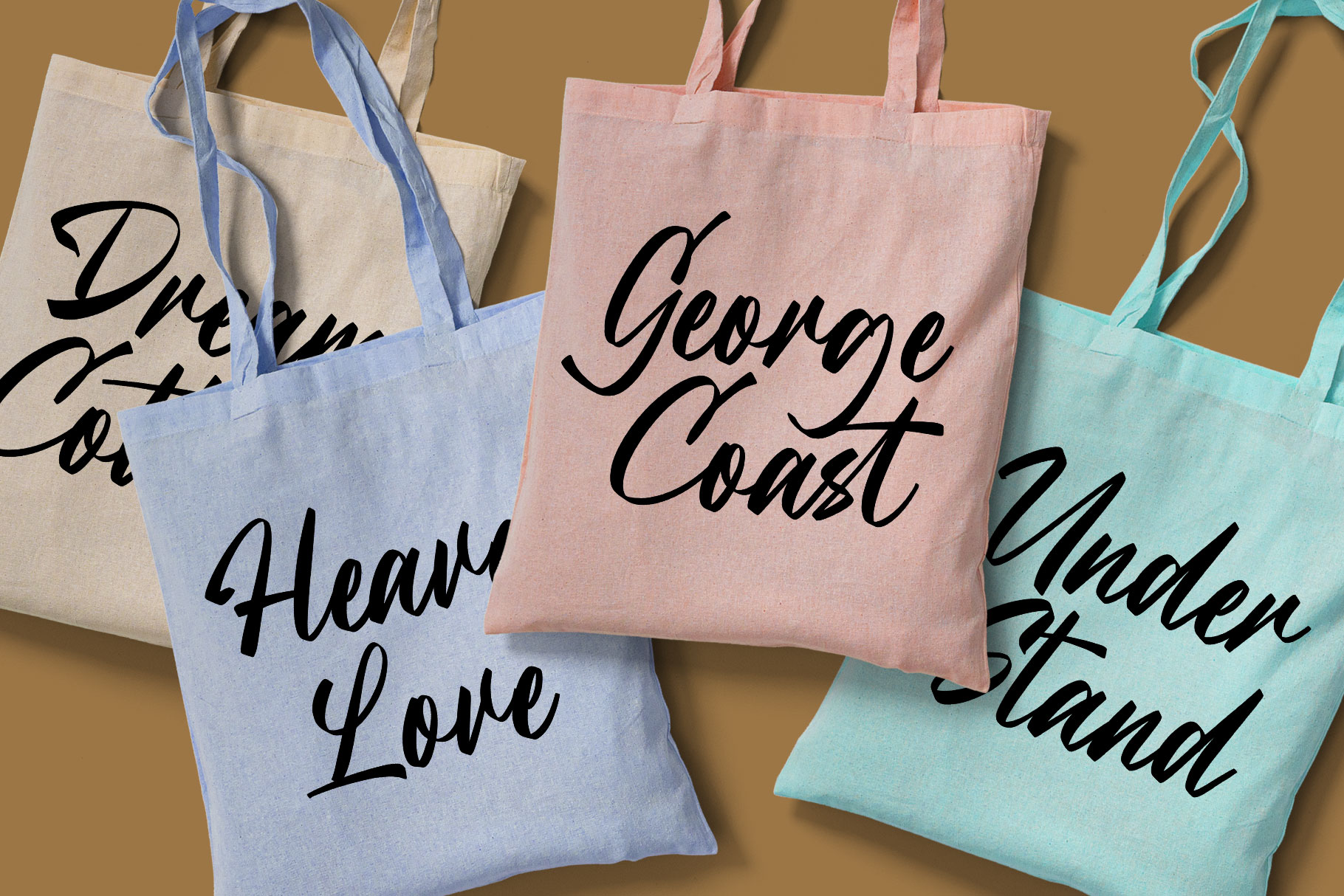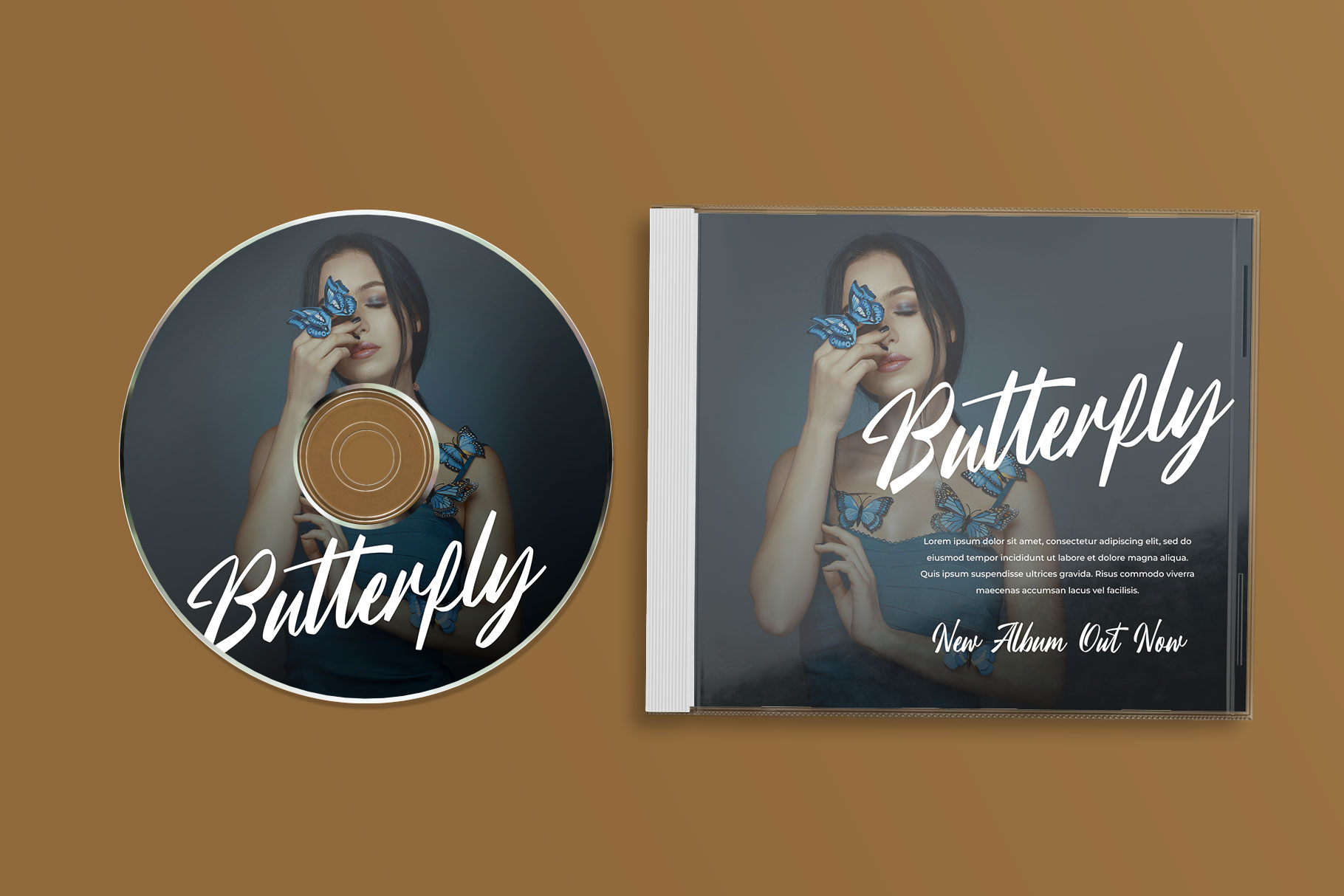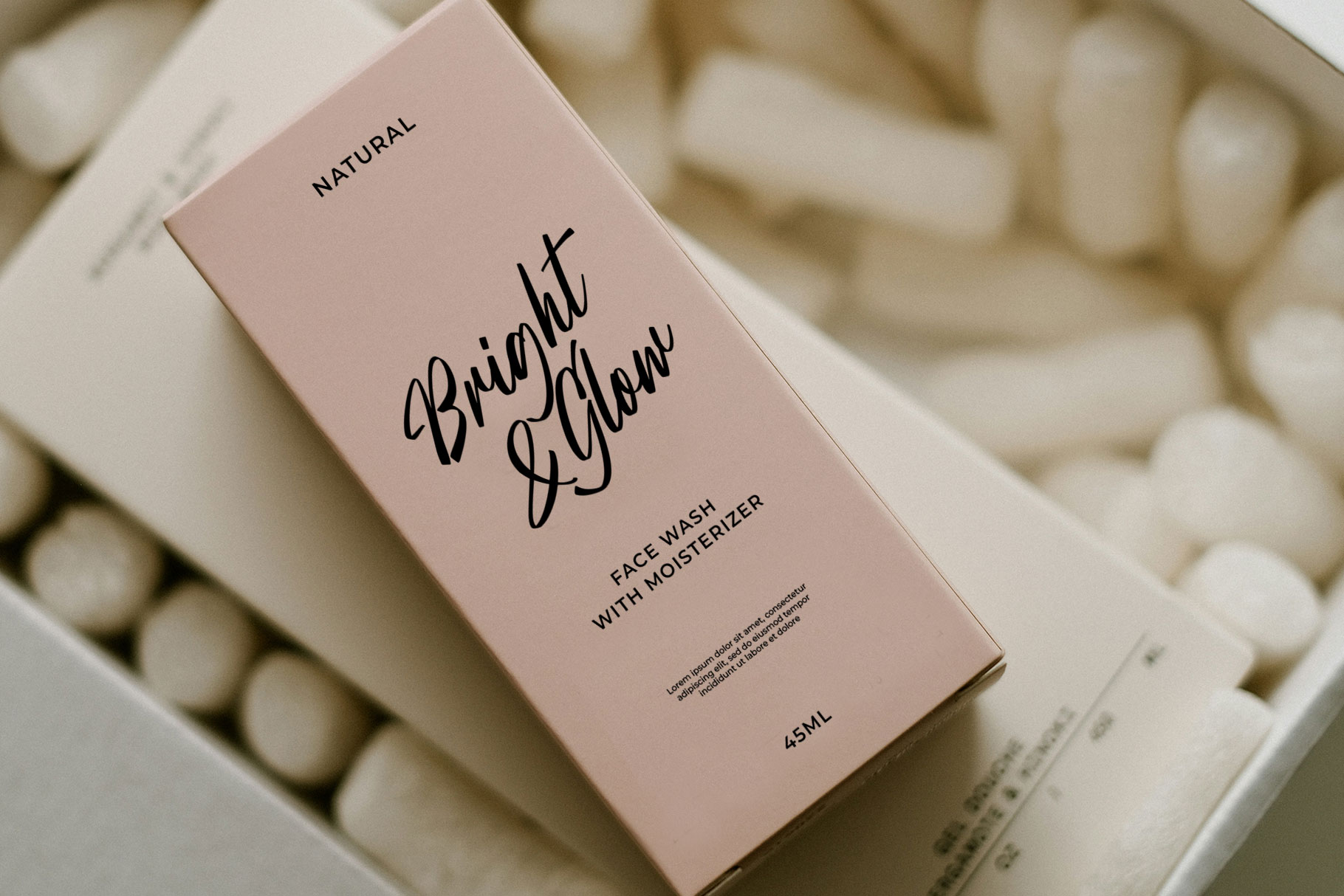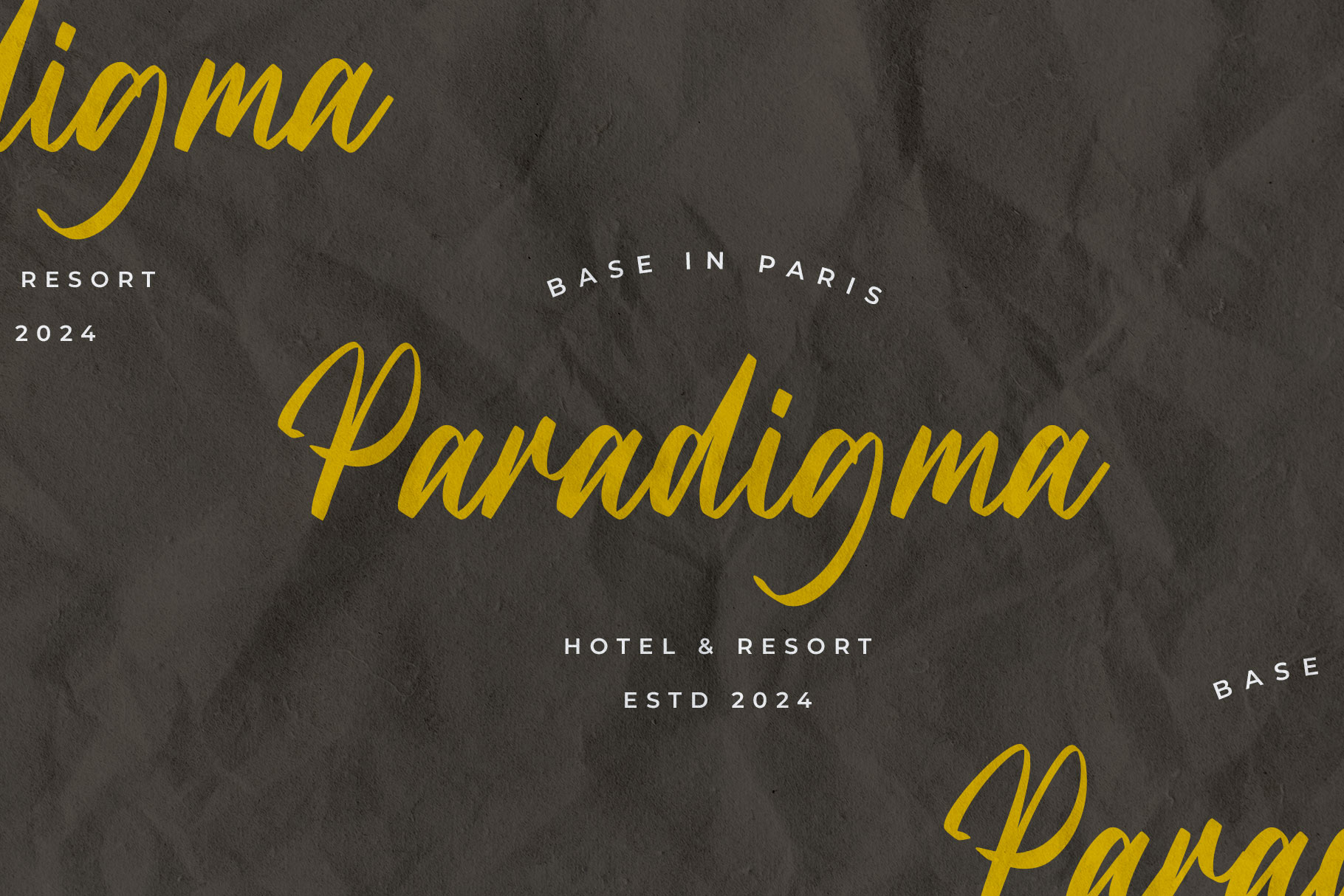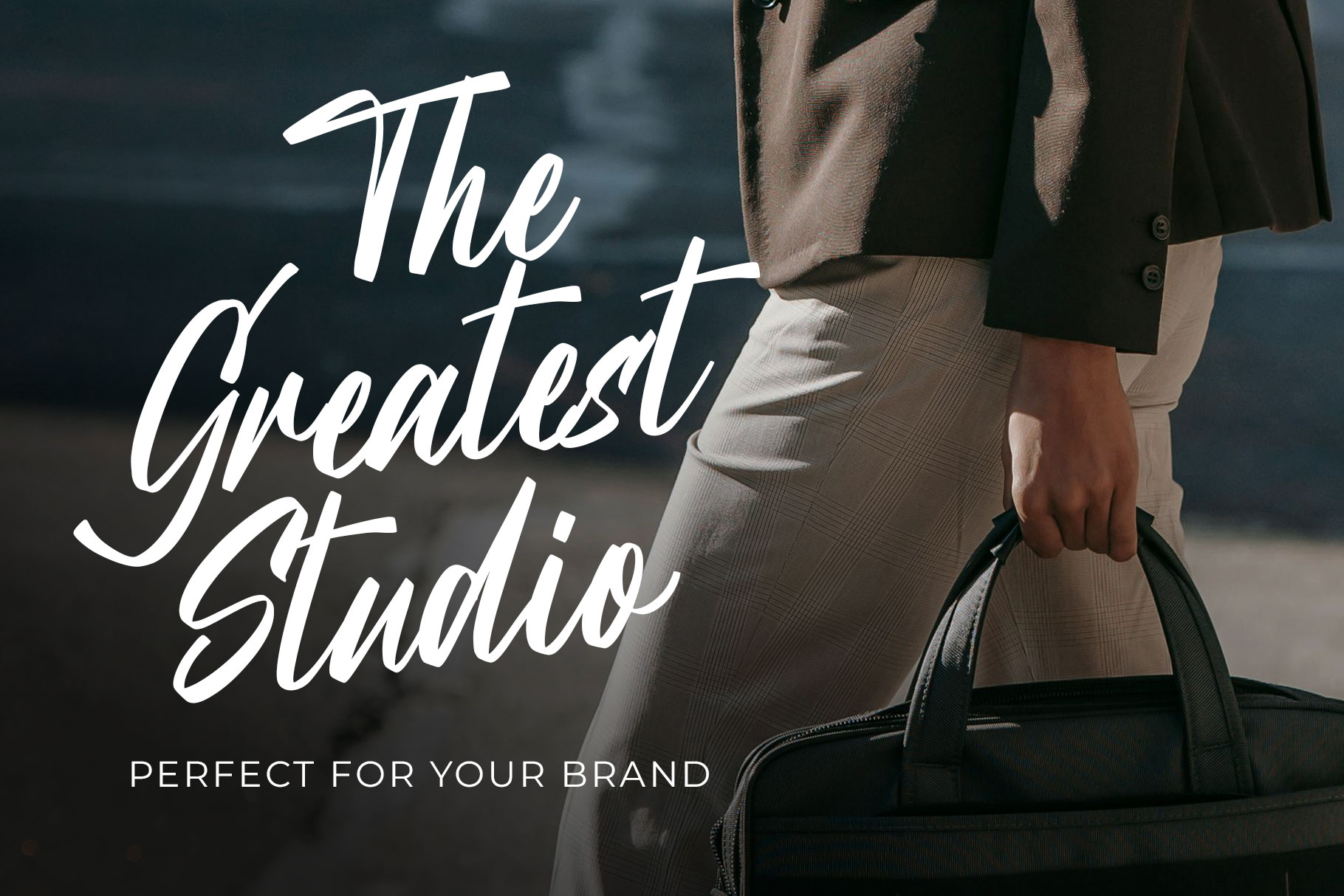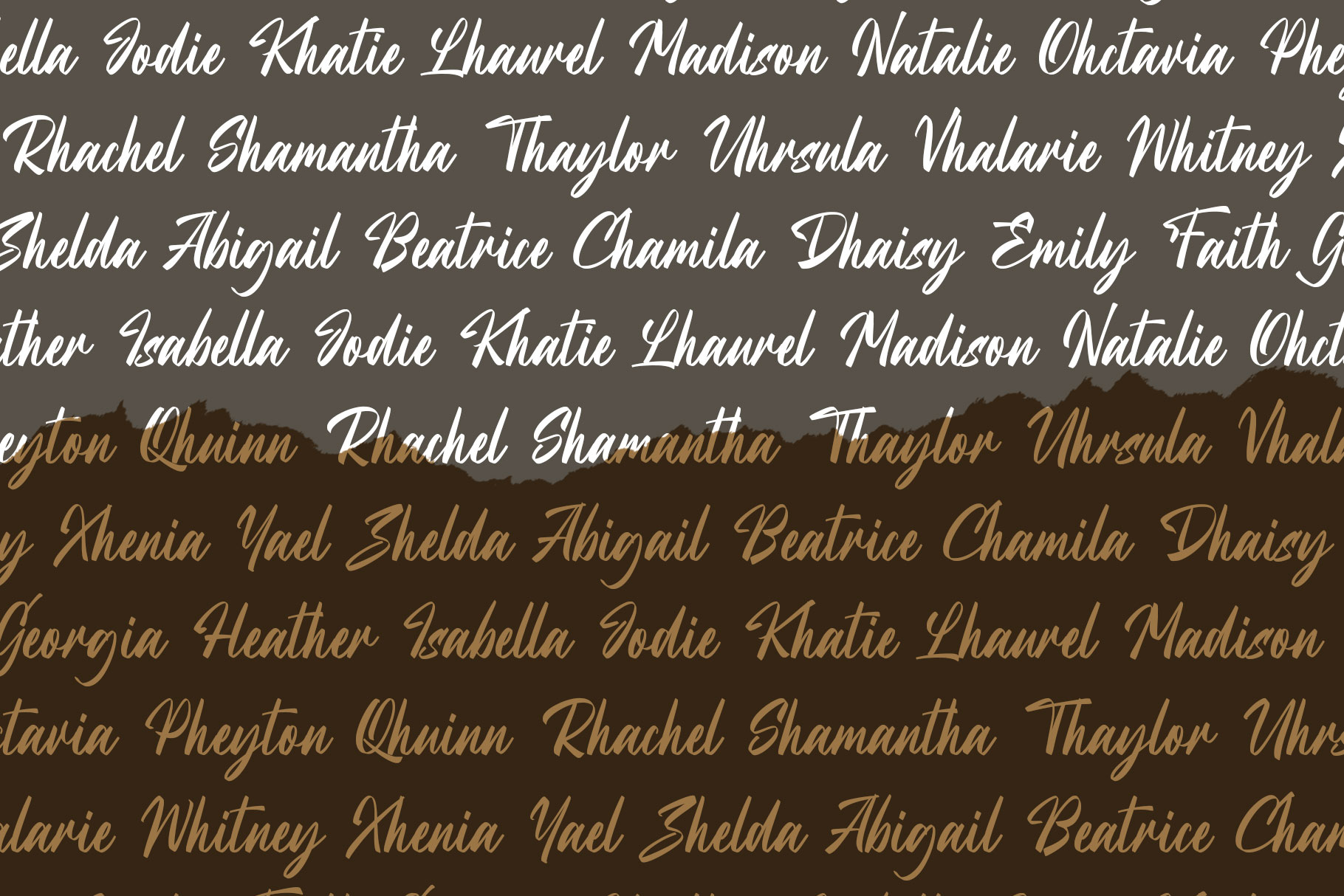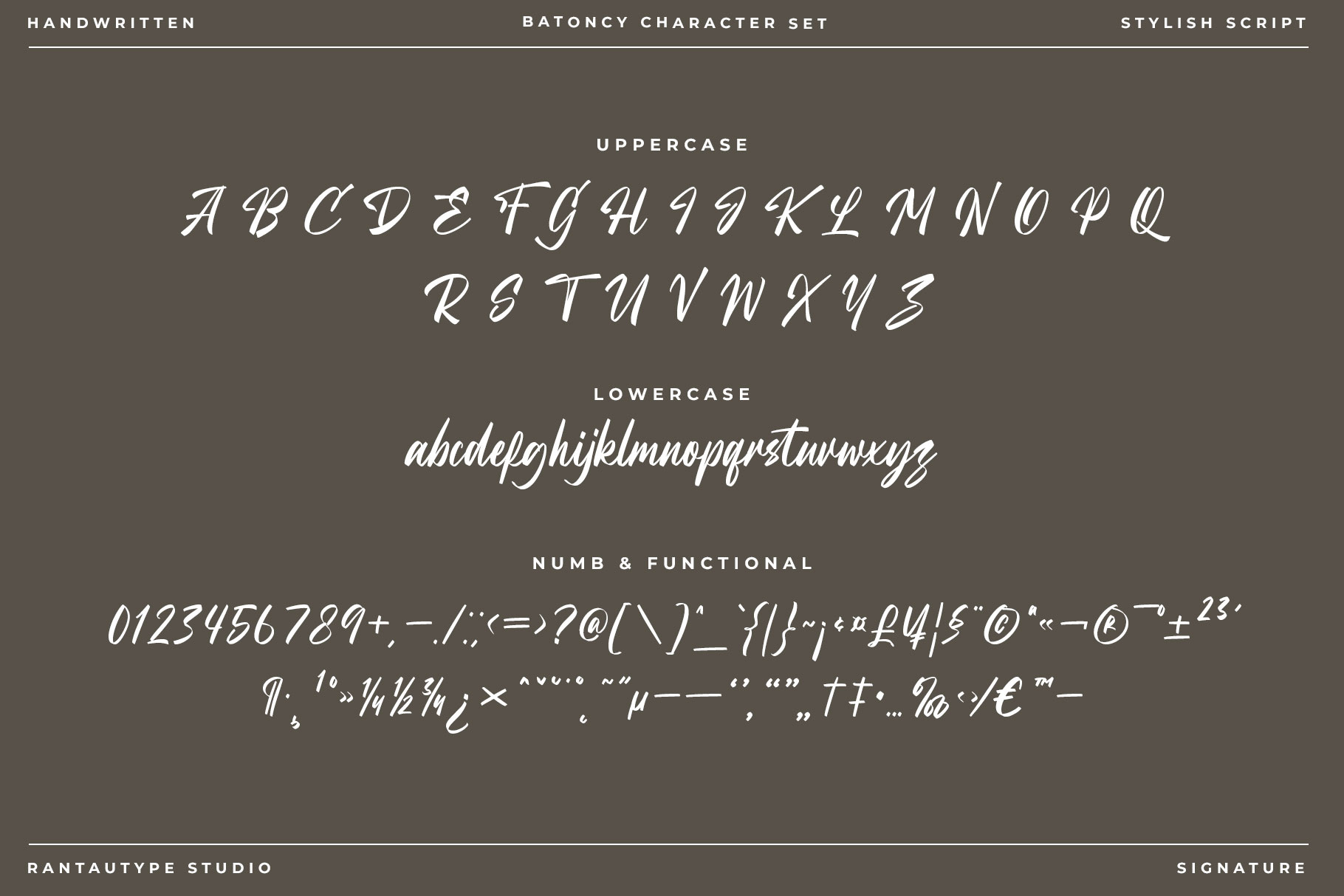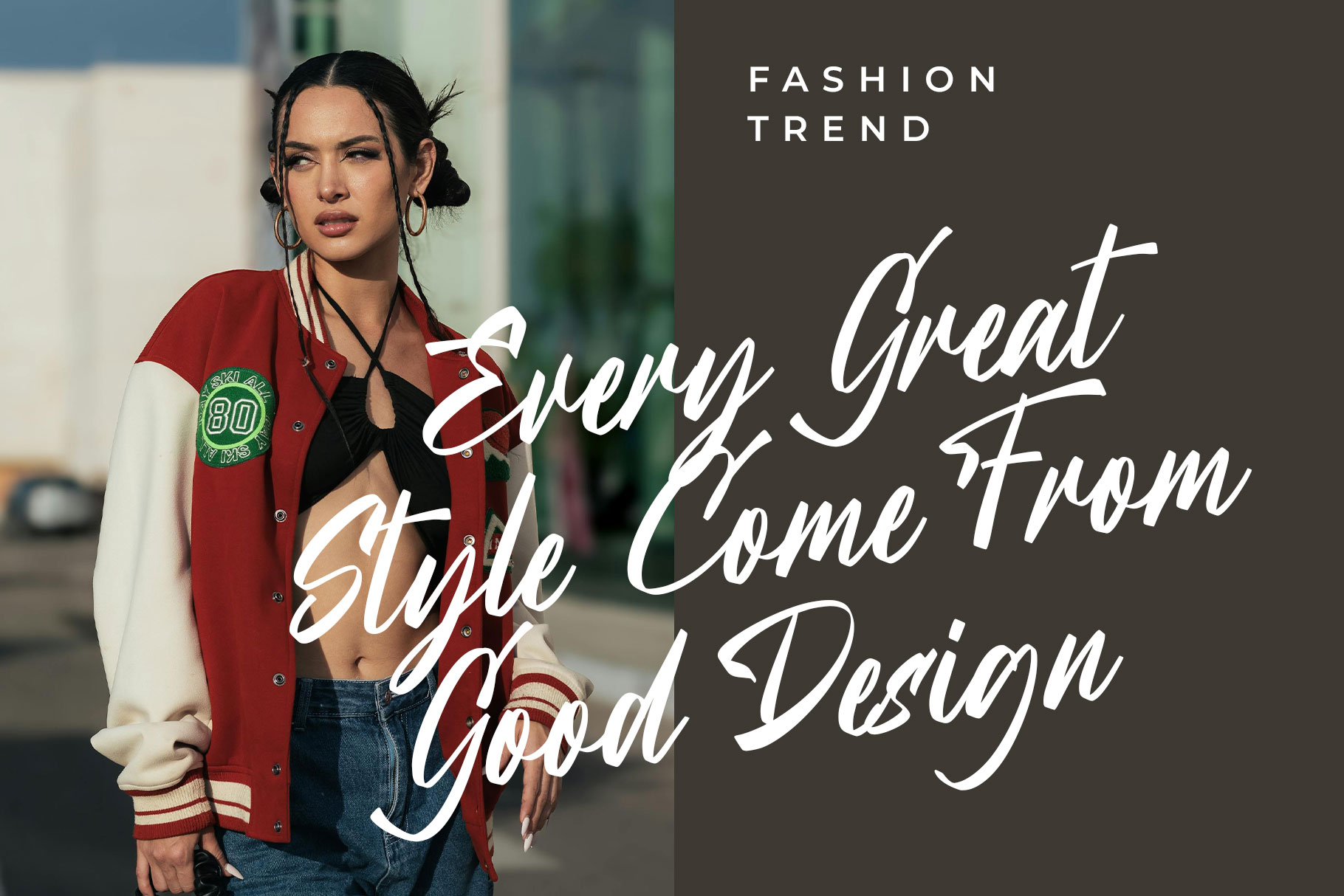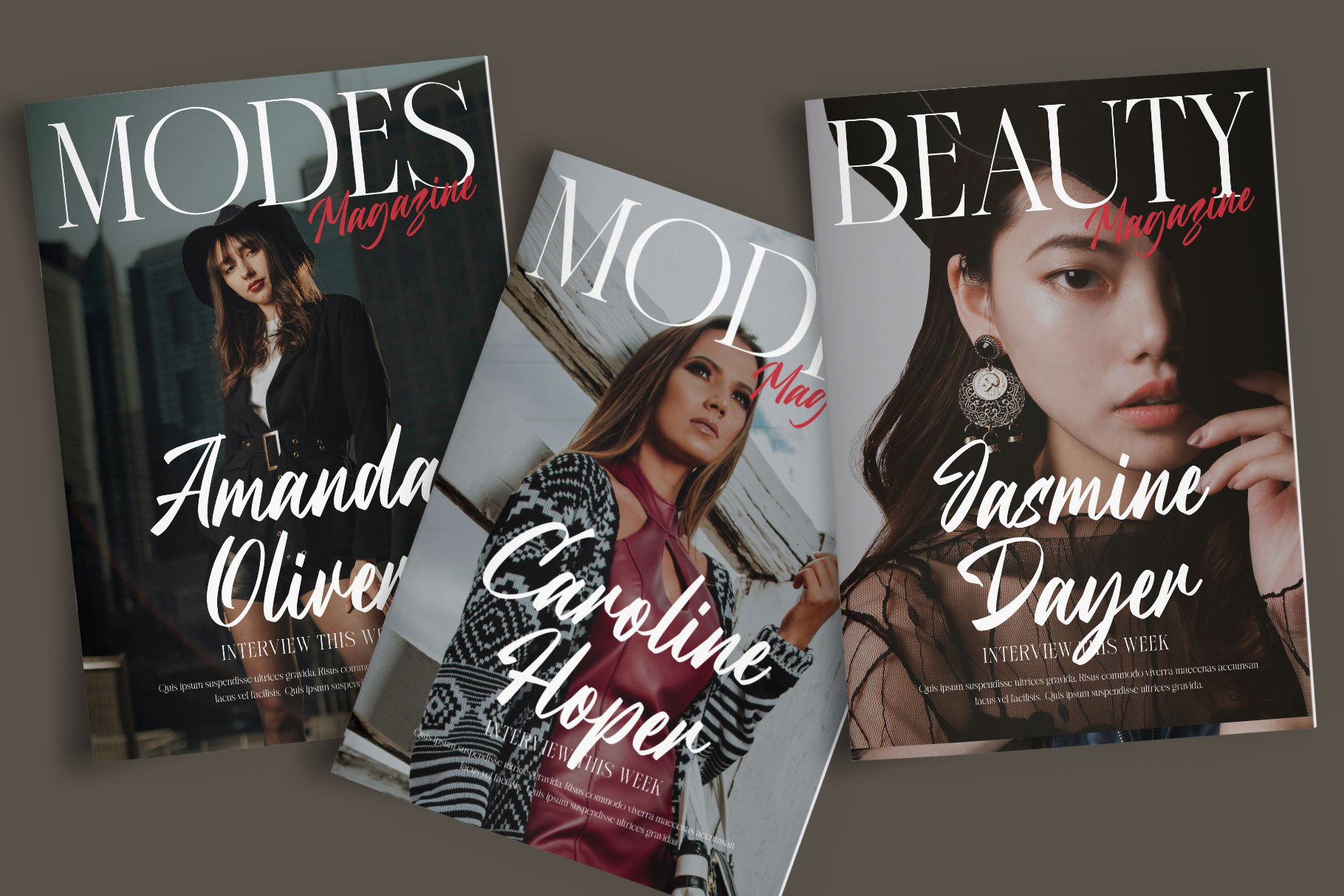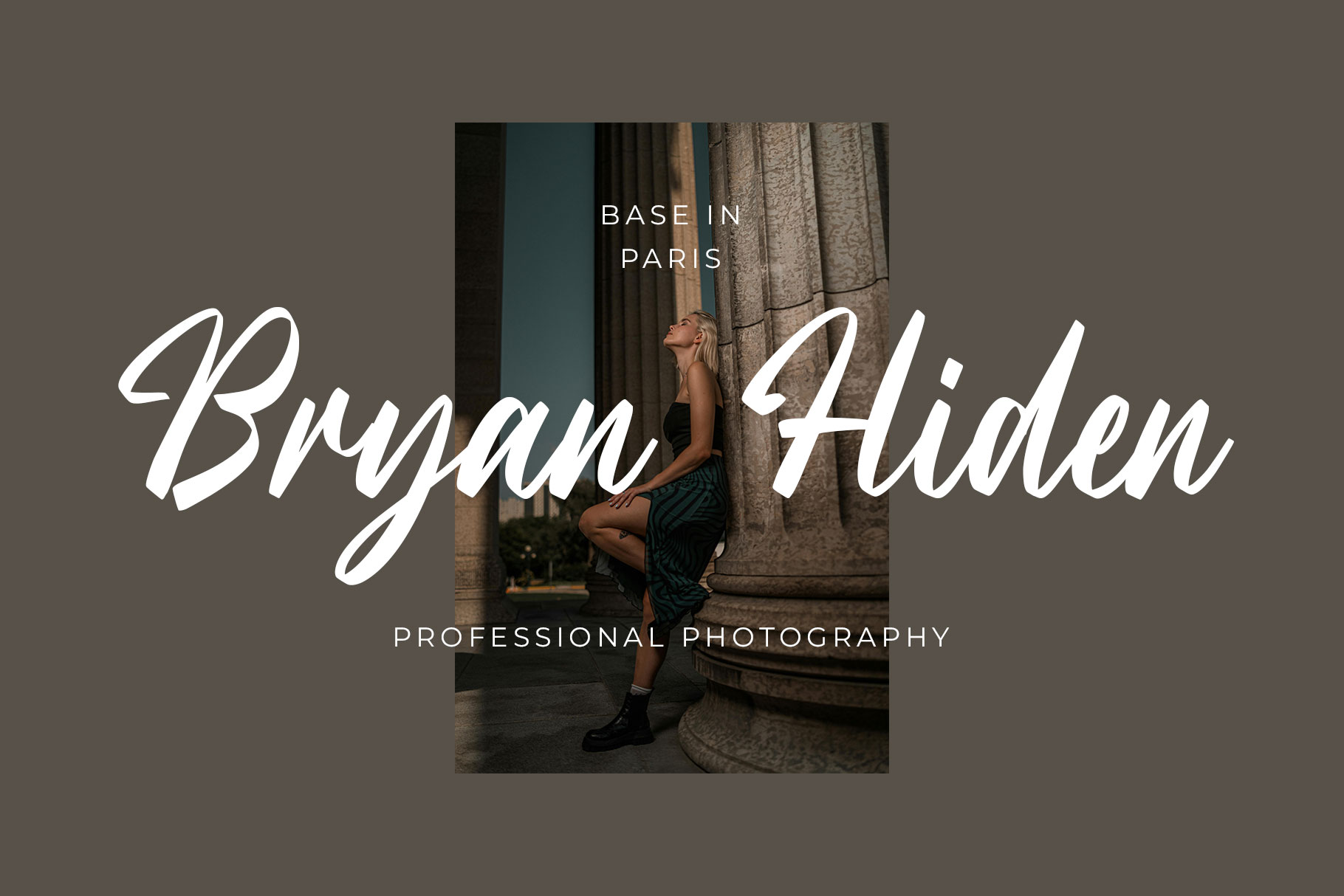
Batoncy Script Handwritten Font
Batoncy is a new handwritten script font with authentic style. Batoncy bring curve shape blend casual trendy sign make it modern look.
Batoncy is a perfect choice for any creative endeavor, lifestyle design such as logos, title, watermark on photography, cover, branding, display and magazine, wedding event, corporate brand, quotes, album cover, business card, business project, company branding and more project with handwritten taste.